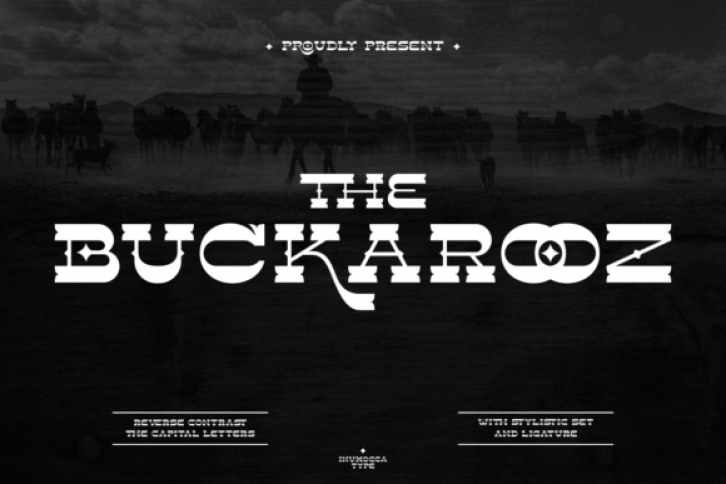
The Buckarooz is a bold, vintage styled display font. Assertive and featuring a western look, this font will instantly make your creative ideas come to live!